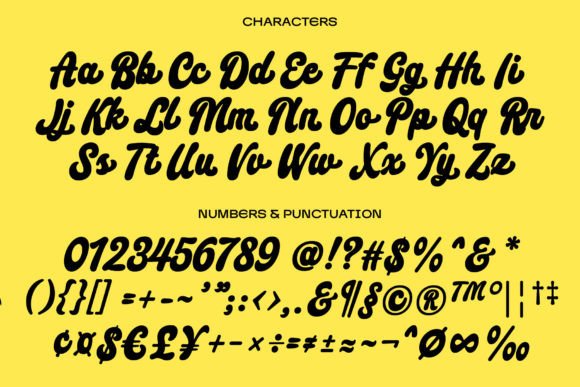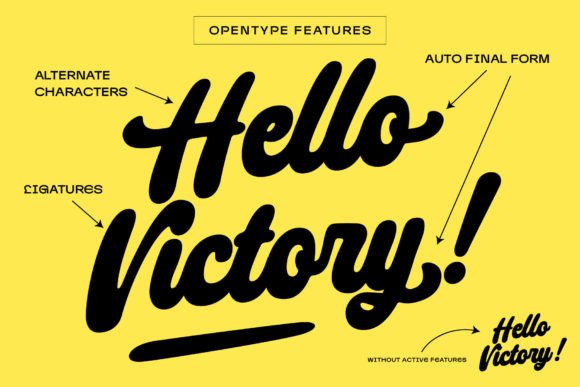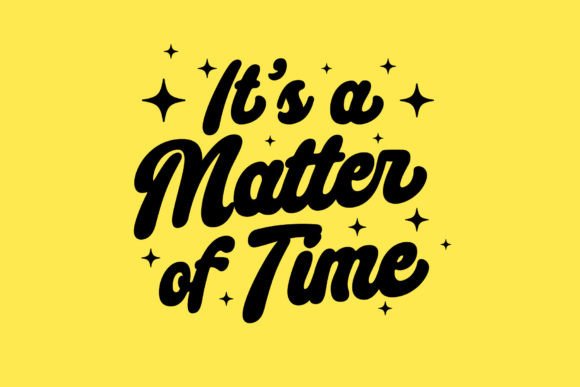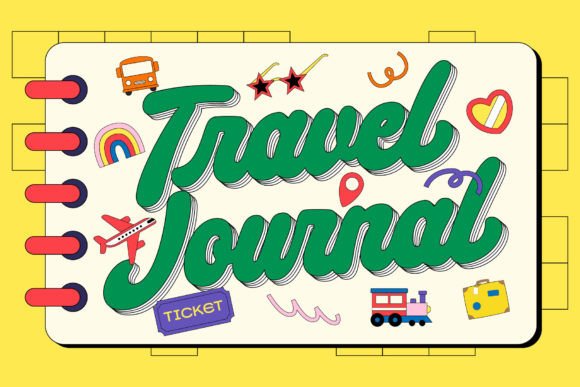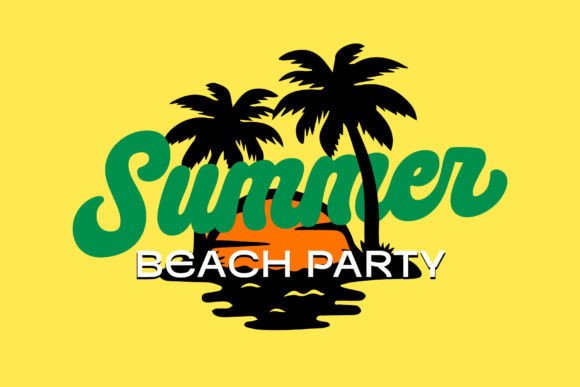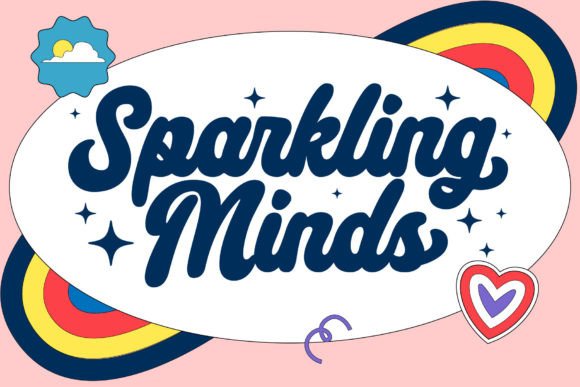
Introduction to Maino Font
Introducing Maino, where script elegance meets playful charm.
This font exudes a delightful blend of softness and boldness, with rounded edges that add a touch of whimsy to any design Its flawless curves and casual strokes make Maino both inviting and versatile, perfect for projects that demand a cute and approachable vibe.
Key Features of Maino Font